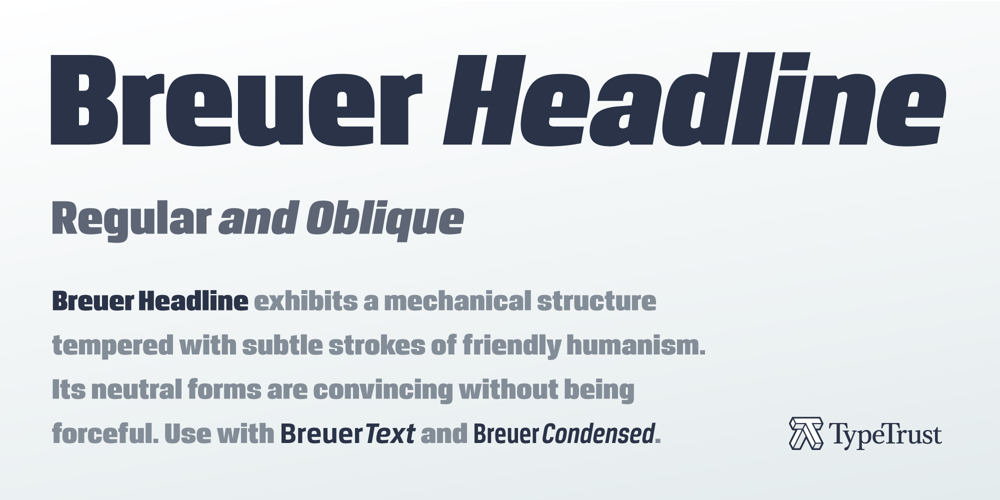
Breuer Headline
Breuer Headline font
Breuer Headline Font Family was designed by Silas Dilworth and published by TypeTrust. Breuer Headline contains 2 styles and family package options. Breuer Headline exhibits a modern geometric structure tempered with subtle strokes of friendly humanism. Its neutral forms and sturdy rhythm are convincing without being forceful. The lowercase has a slightly casual feel. Set in all caps for a sterner message. Breuer Headline is the display complement to the Breuer Text family. Differences are found in the inside curvature of the lowercase arms and the simplified Oblique as opposed to the Text Italics. Breuer Headline is equipped with Small Caps, Old Style Figures, Tabular Figures, and a selection of dingbats.